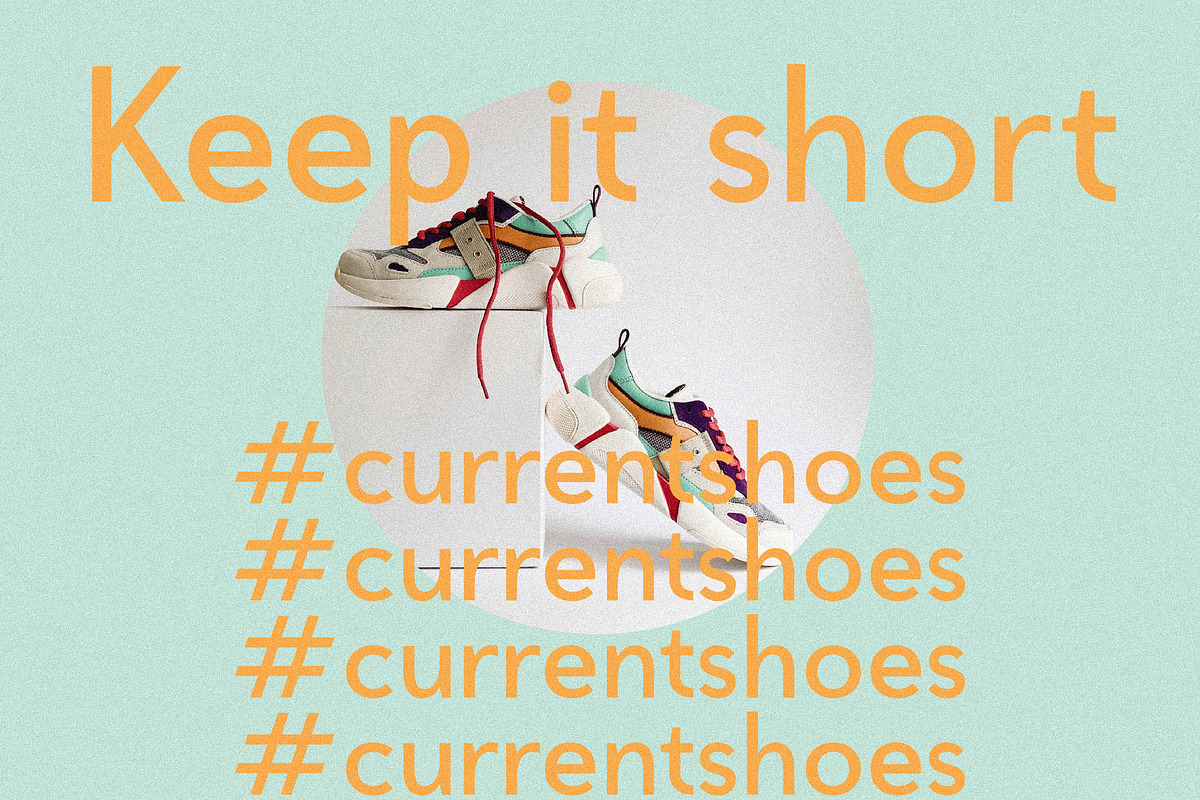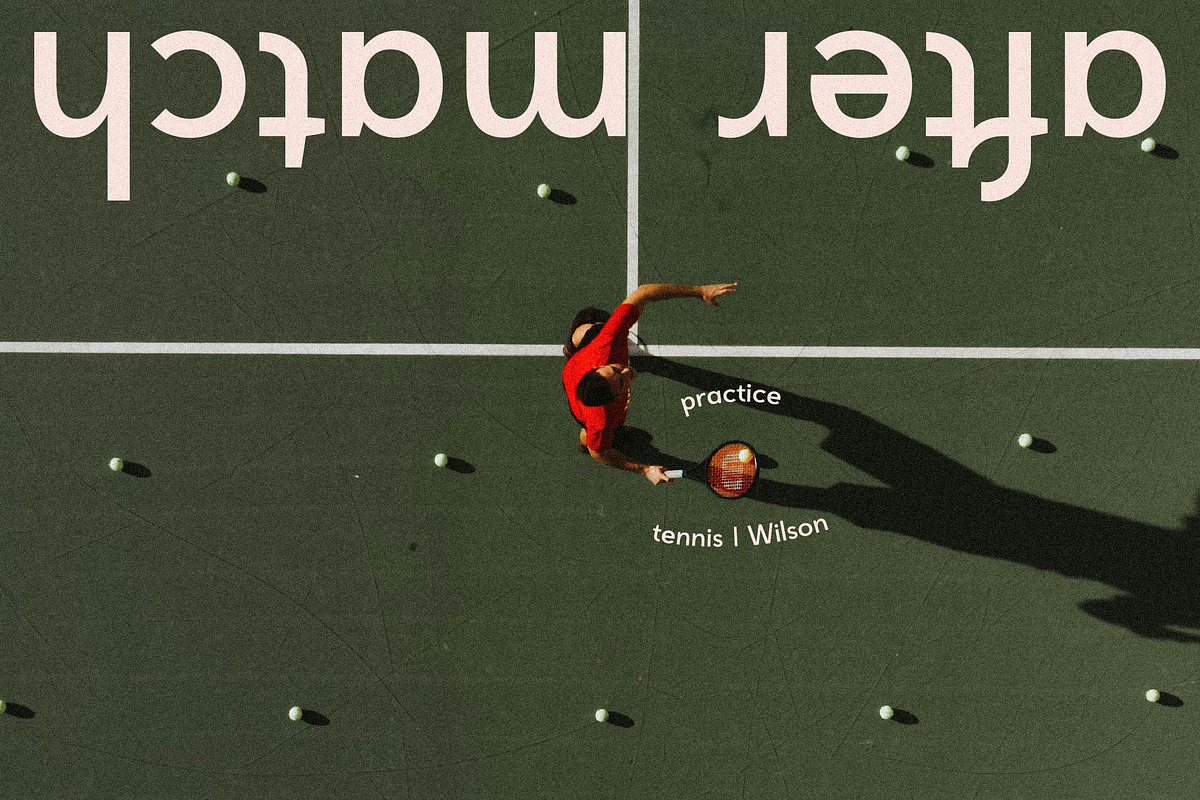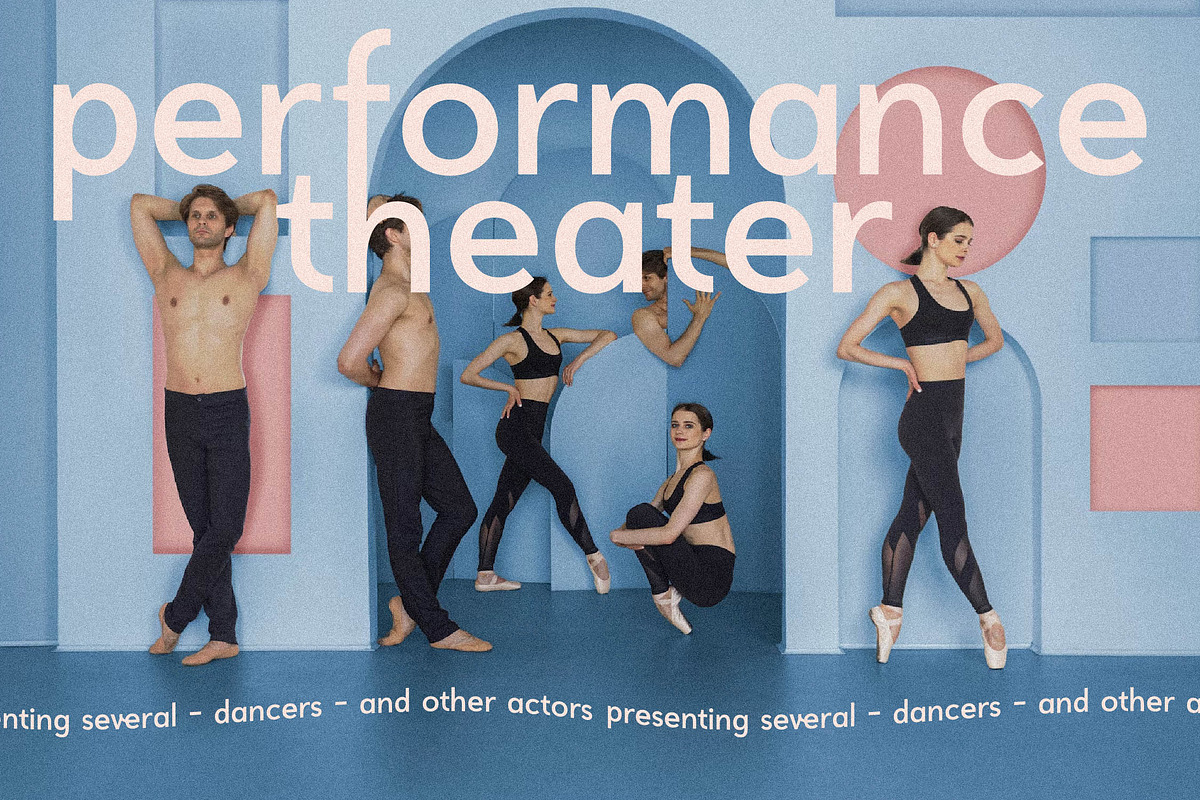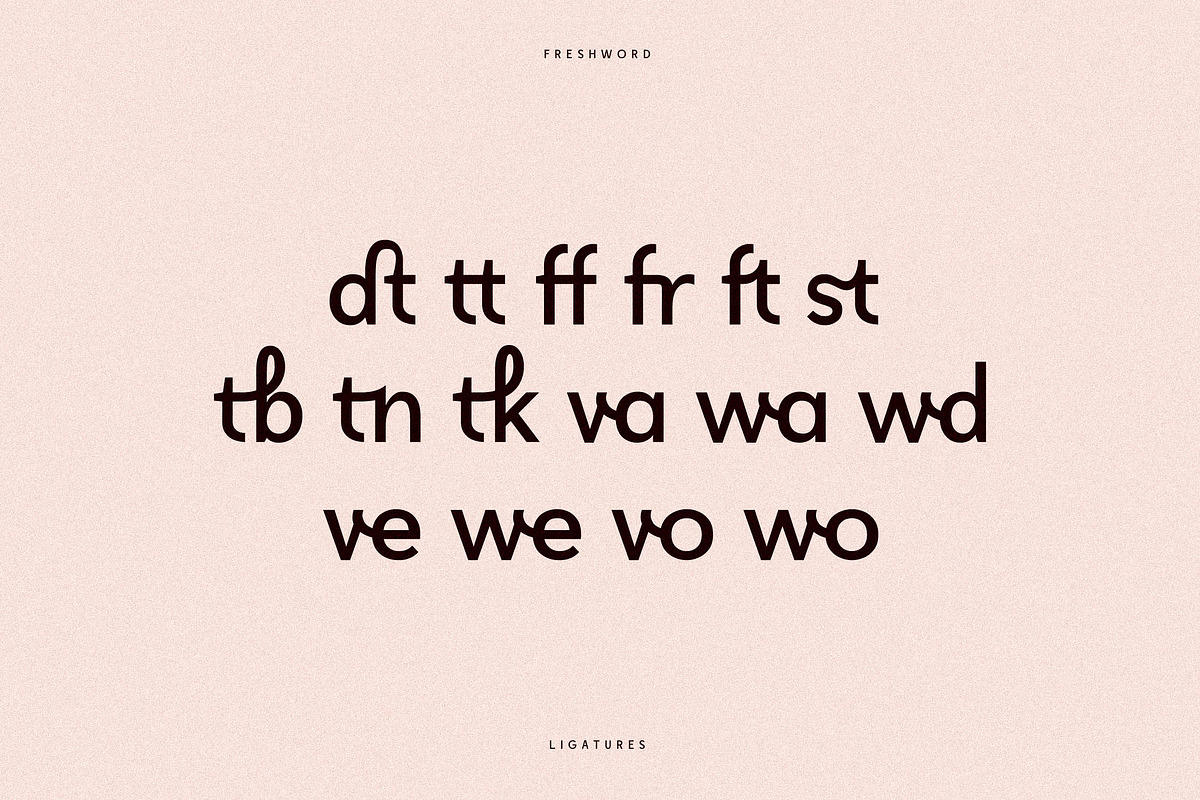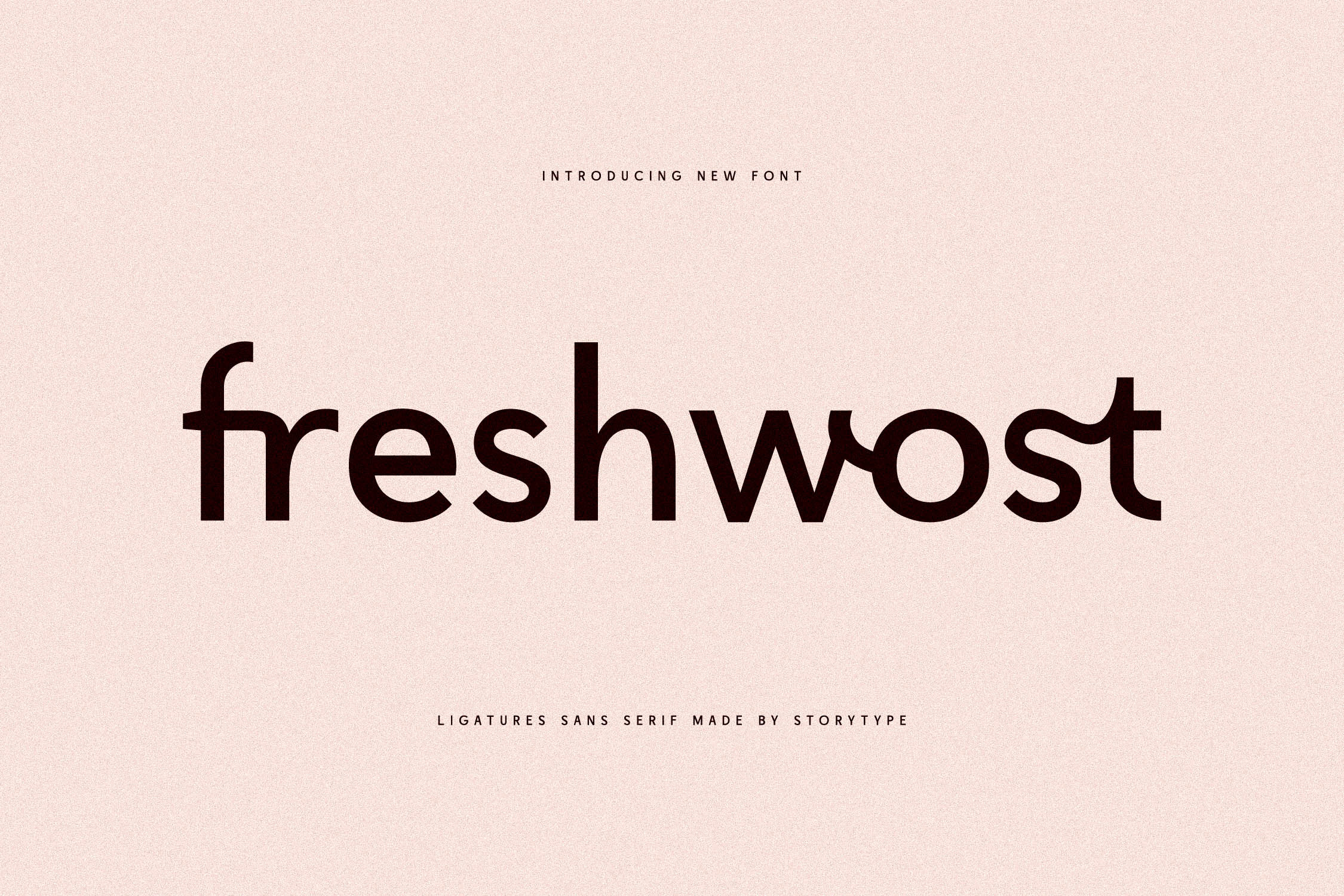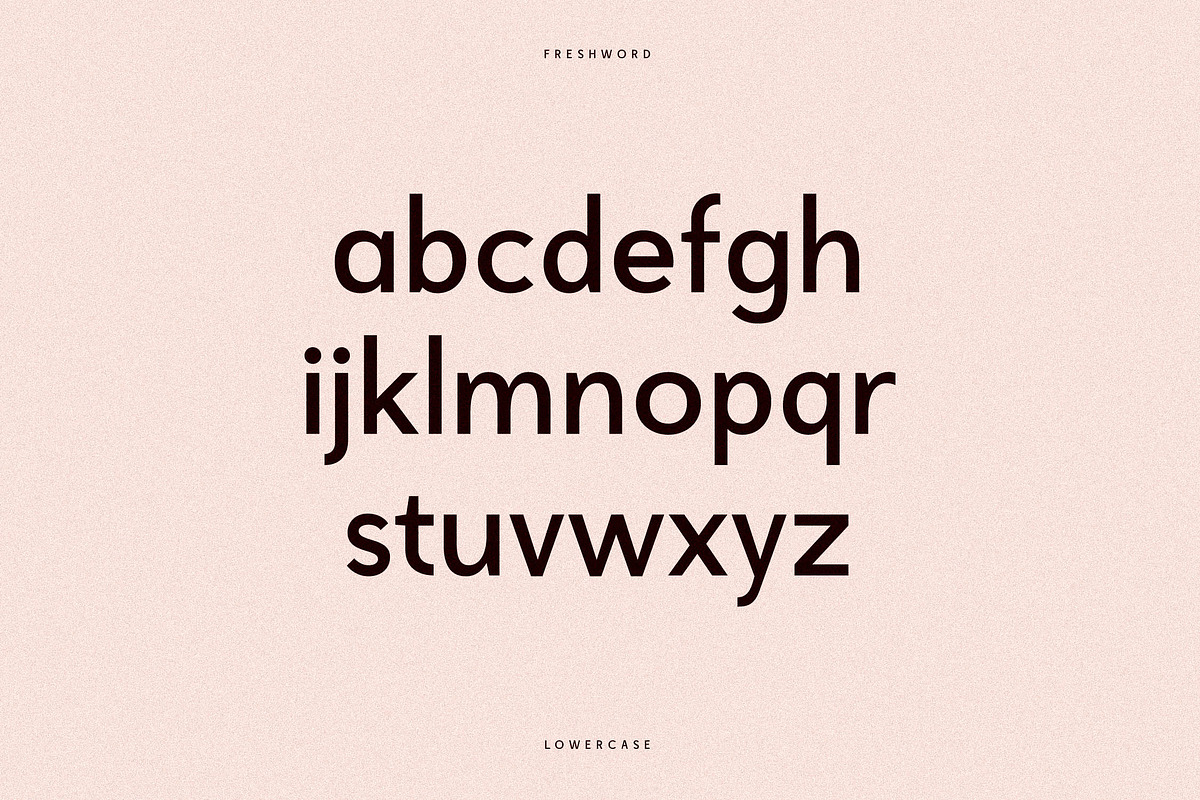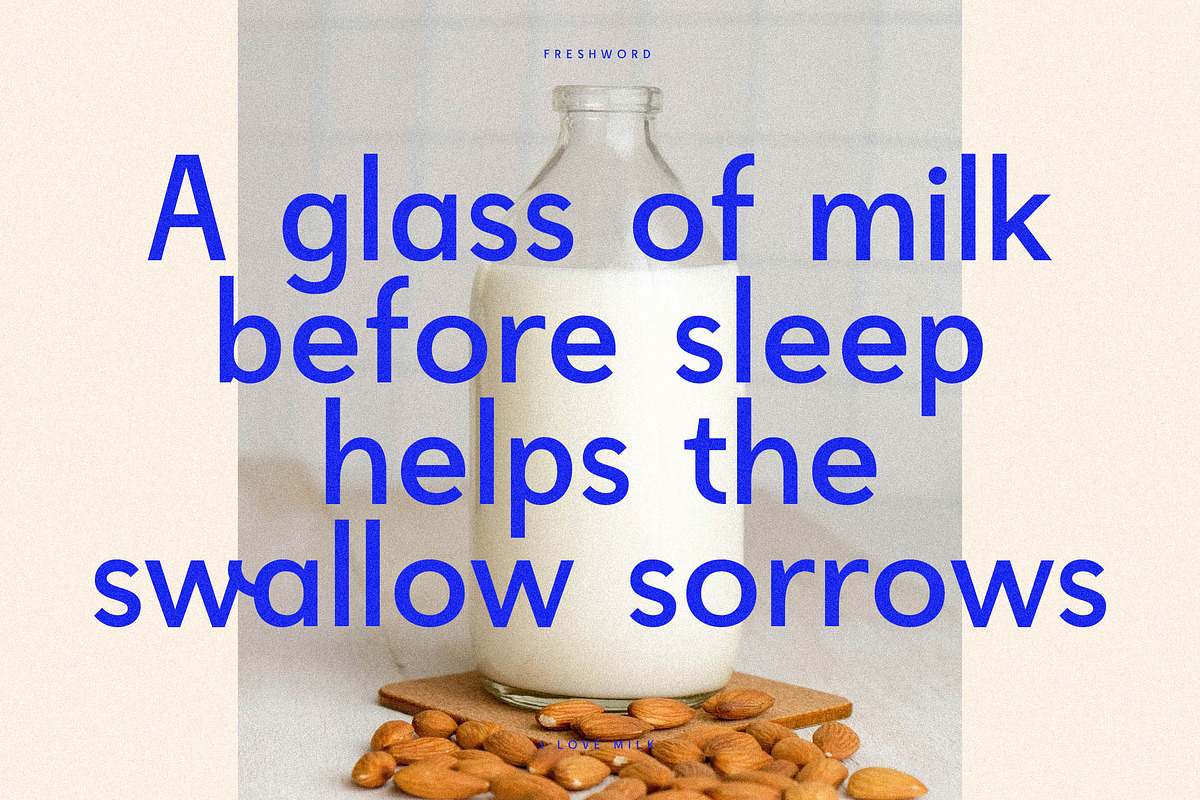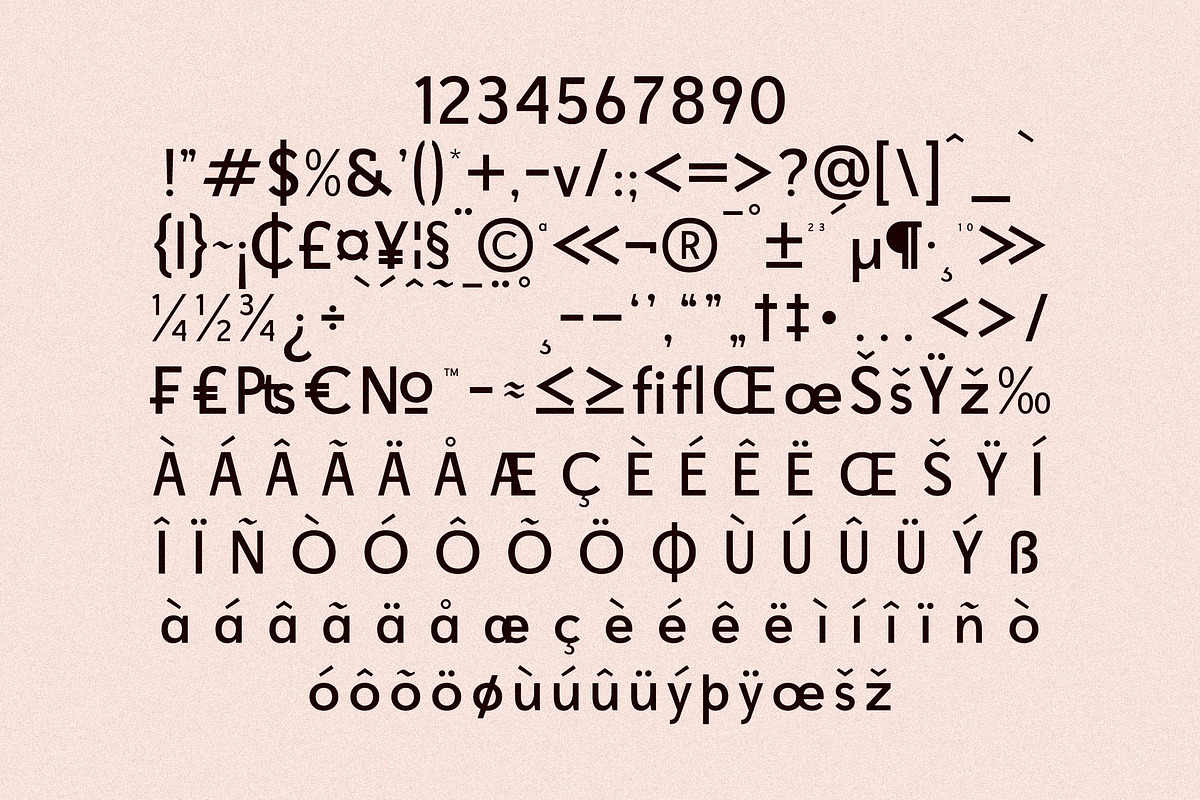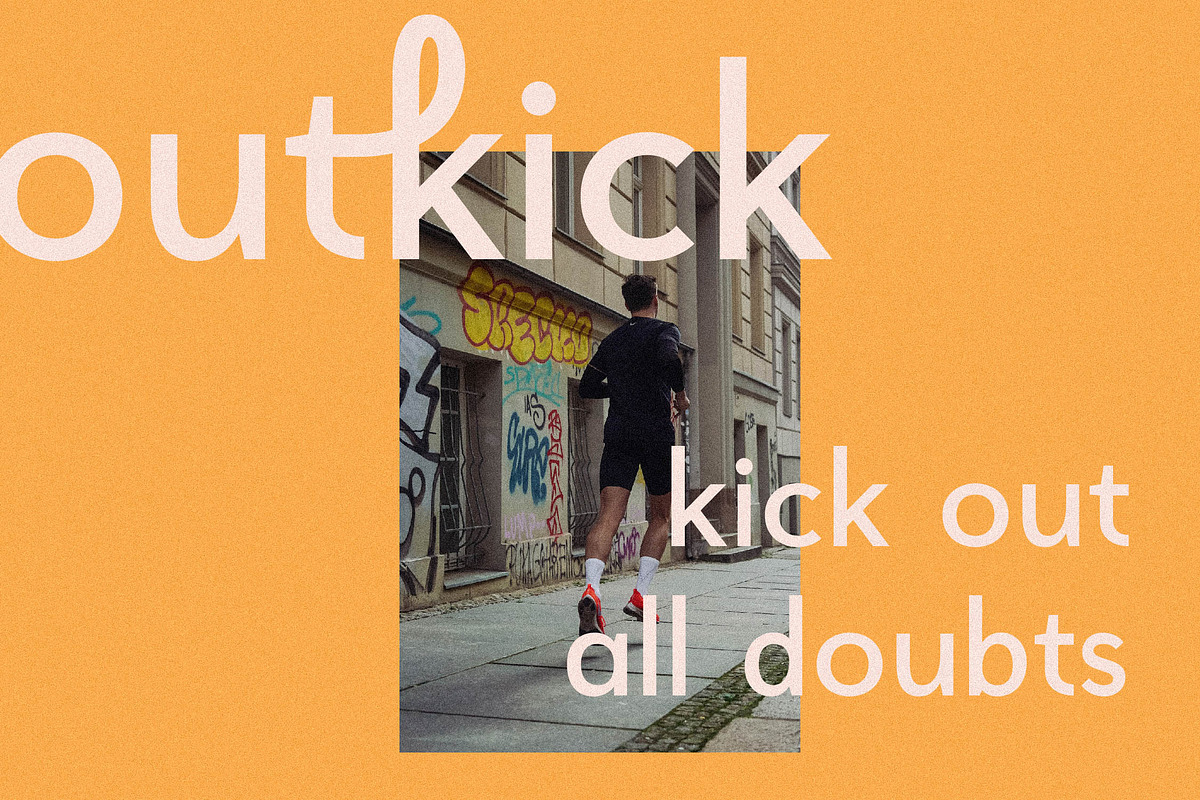
Freshwost Ligatures Sans Serif Font
Proudly present freshwost Typeface , created by Storytype, A serif modern and classic typeface that has own unique style & modern look. This typeface is perfect for an elegant & luxury logo, book or movie title design, fashion brand, magazine, clothes, lettering, quotes, and so much more.